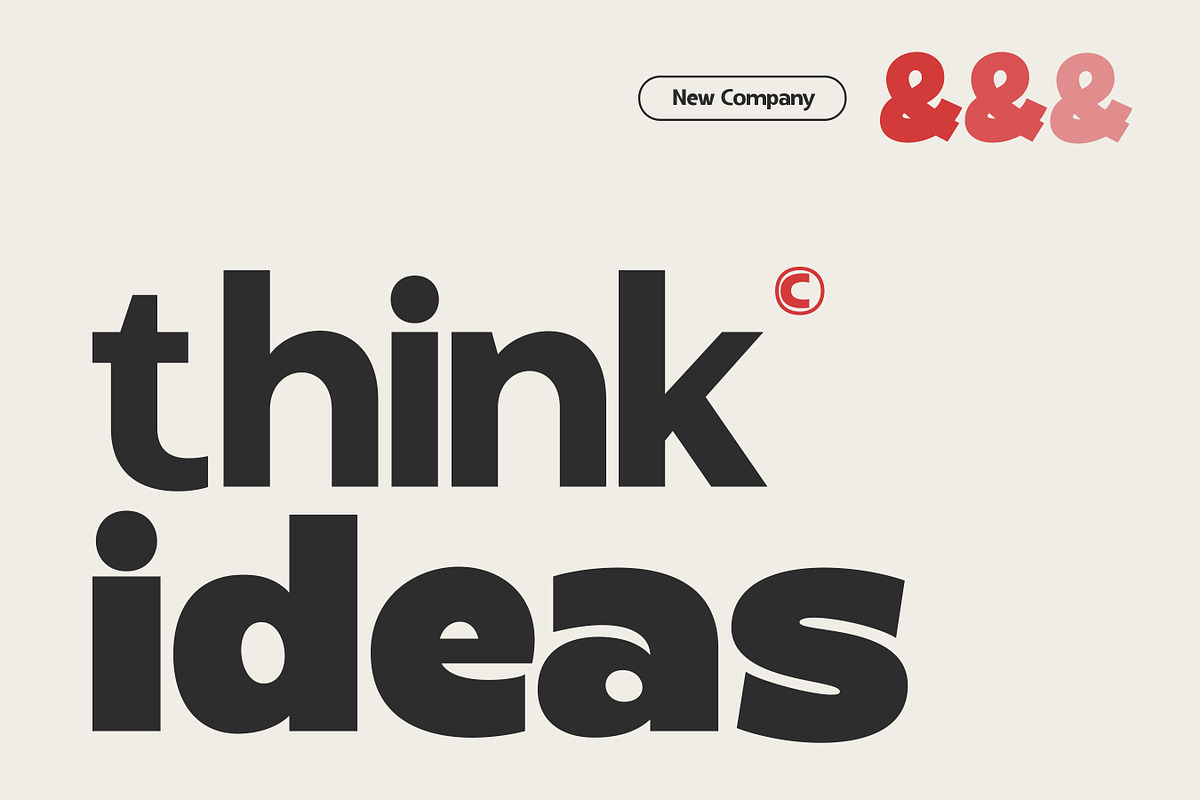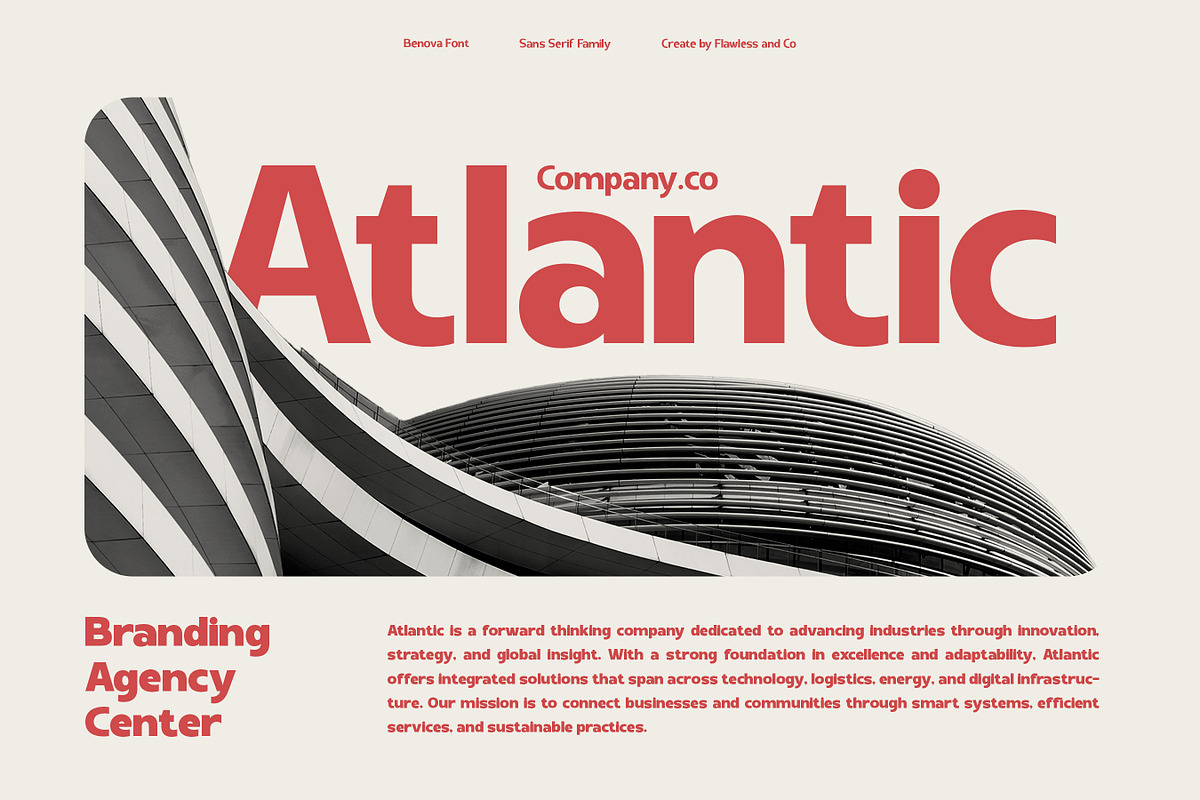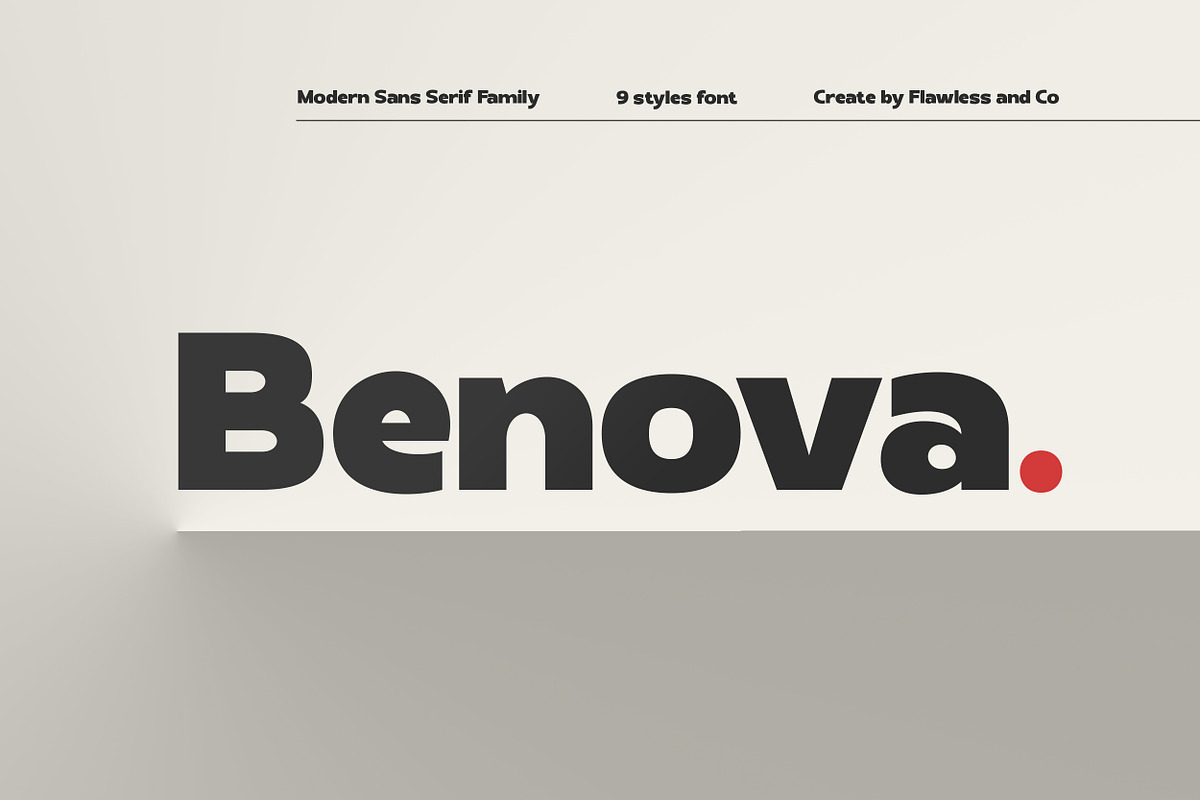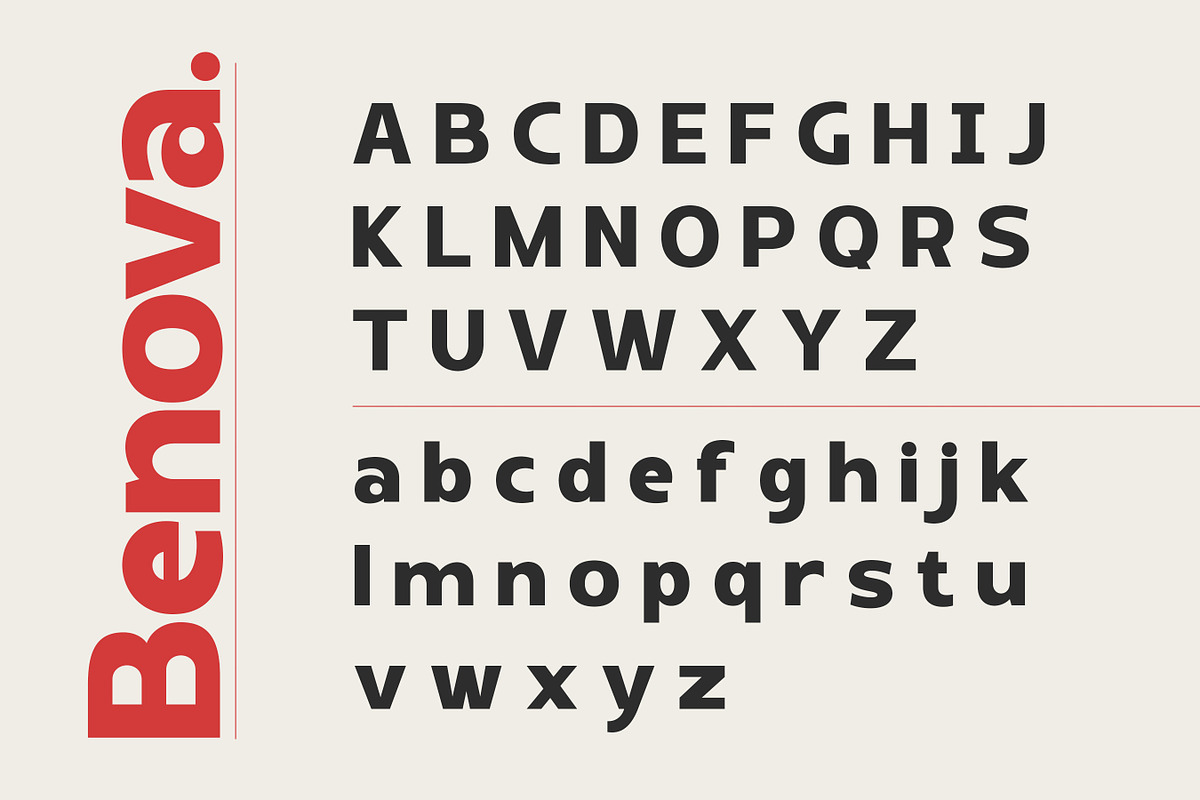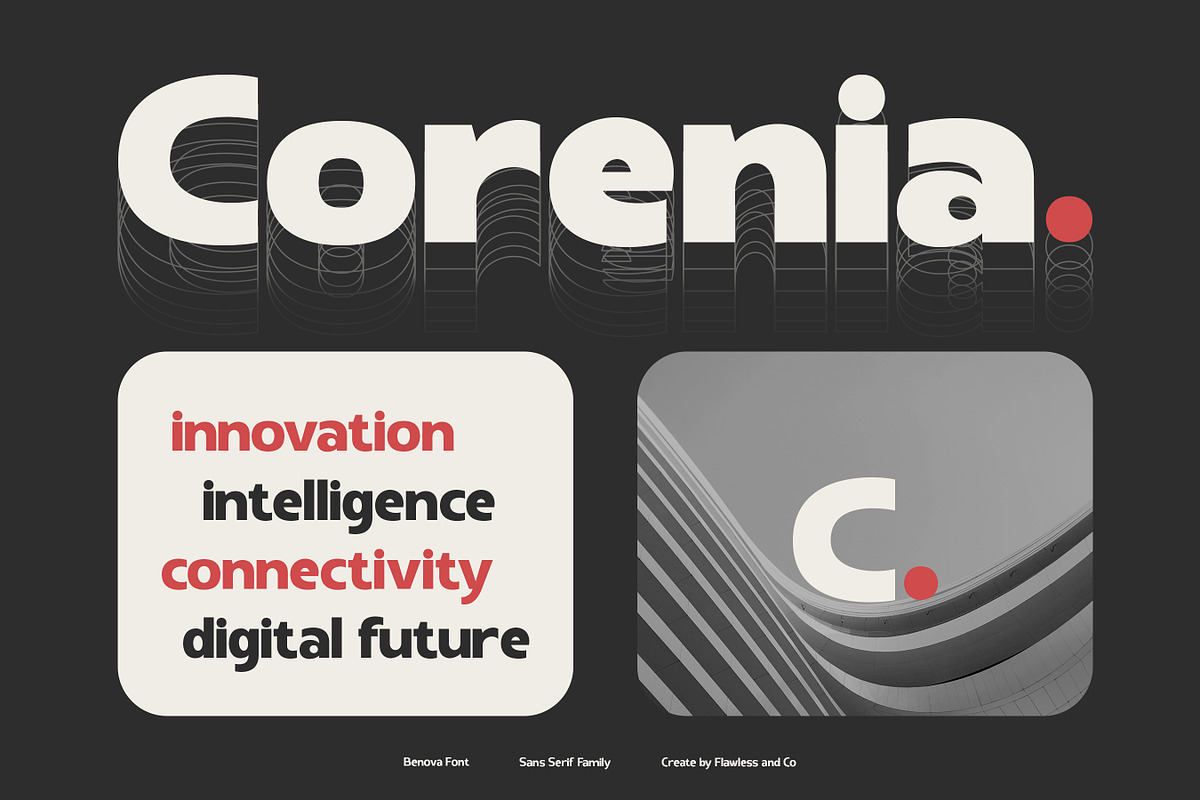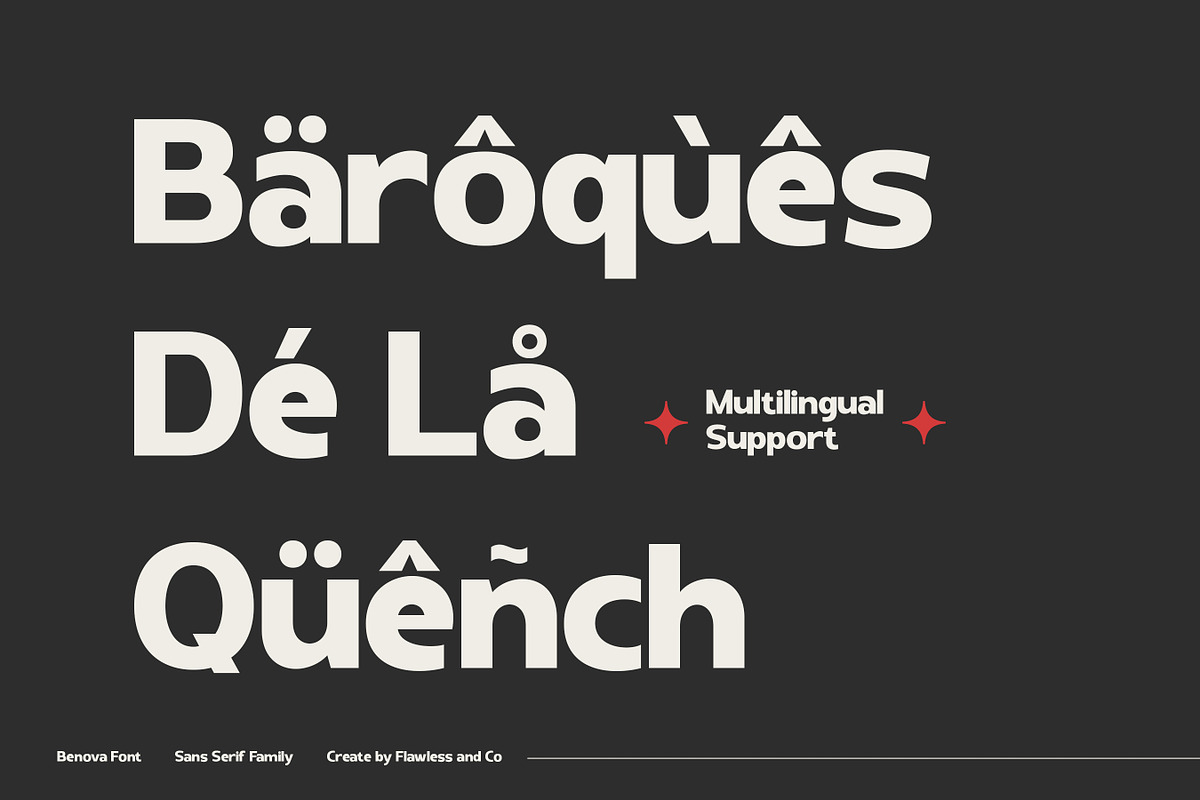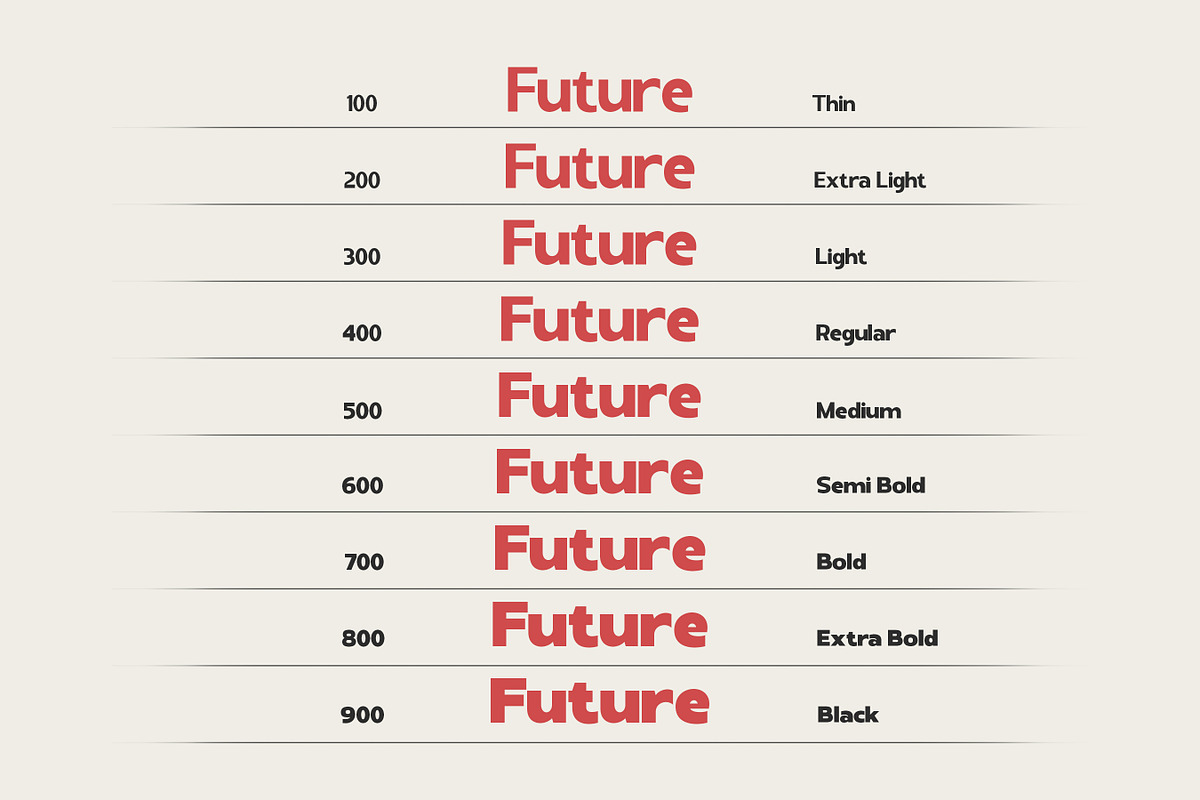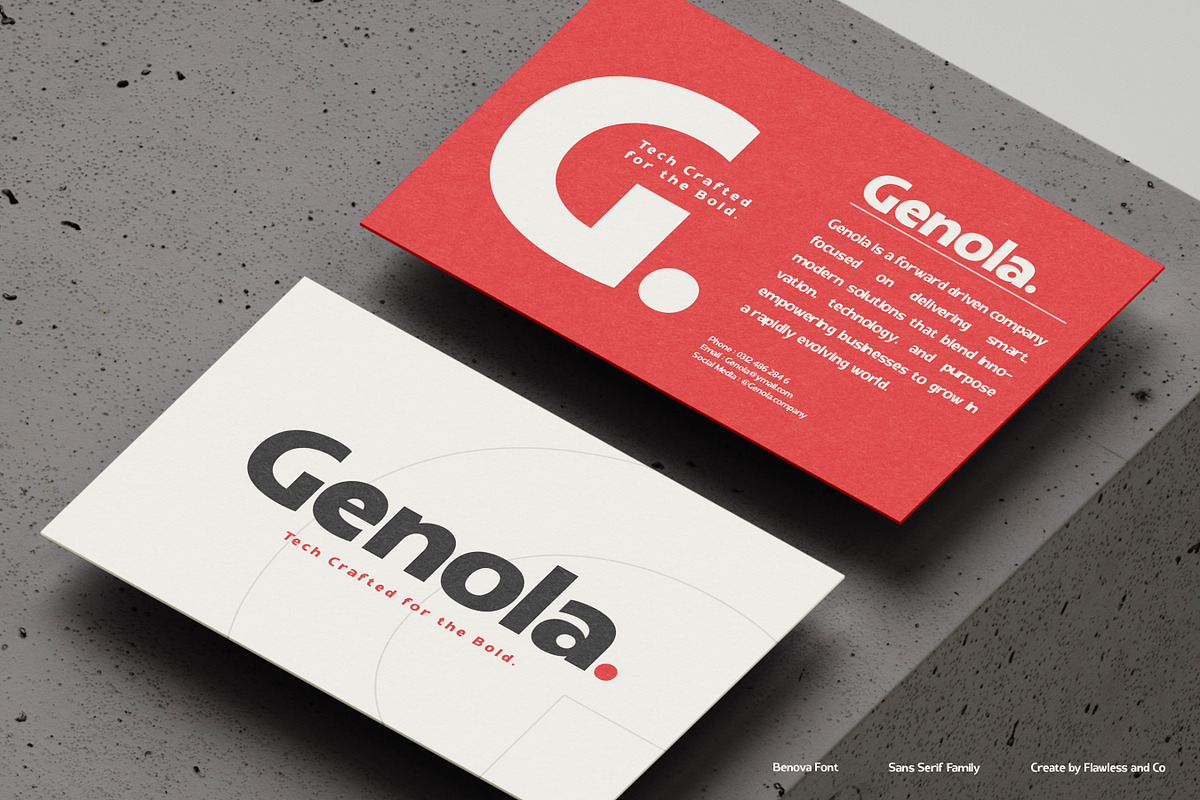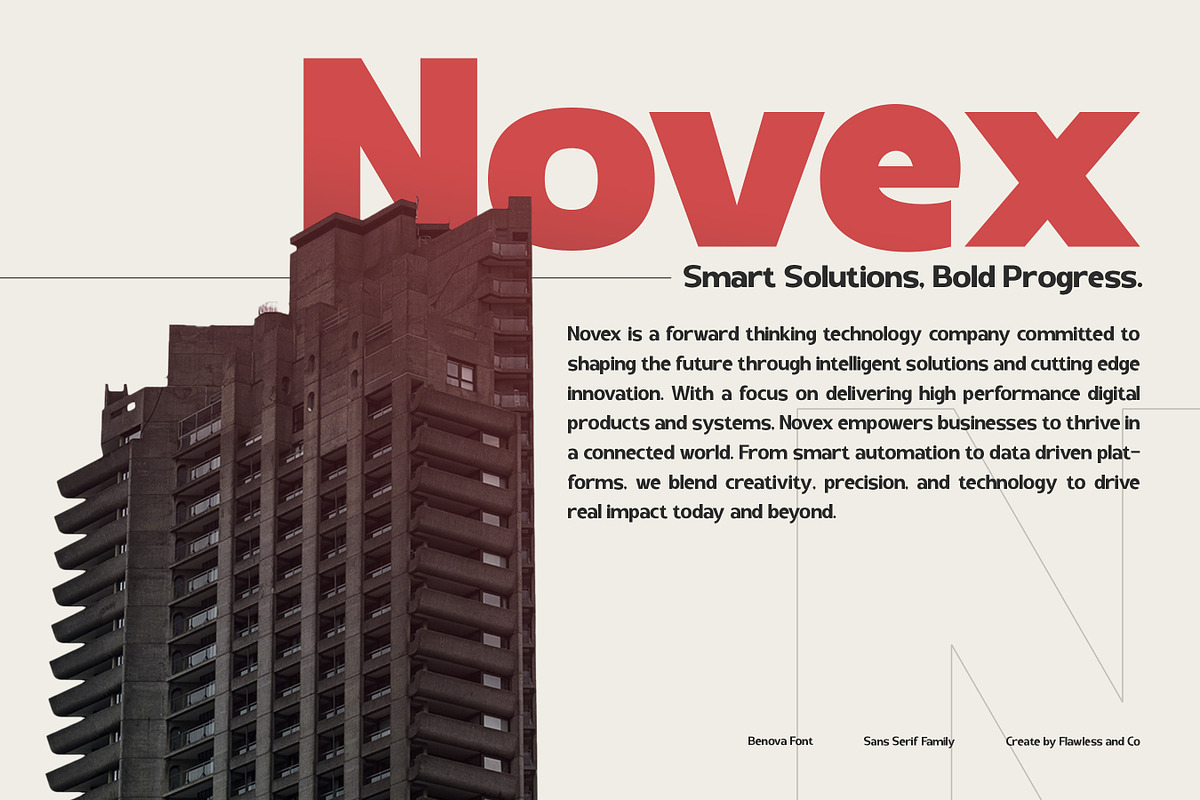
Benova - Family Sans Serif Font
Benova - Modern Sans Serif Family Font
Benova is a modern sans serif font family designed with versatility, balance, and bold clarity in mind. Featuring 9 carefully crafted styles ranging from thin to black, Benova offers clean lines, geometric shapes, and excellent legibility that make it ideal for both print and digital projects. Its contemporary design gives a strong and confident voice, perfect for professional branding, corporate identity, editorial layouts, and bold headlines. Whether you’re working on logos, marketing campaigns, or sleek product packaging, Benova provides the flexibility and style needed to create impactful designs.
Who Should Use Benova?
Benova is the perfect choice for designers, brands, and professionals who value clarity, versatility, and modern aesthetics in their work.
This font is ideal for:
- Graphic designers who need a clean, adaptable typeface for multiple projects
- Branding agencies creating strong, professional visual identities
- Businesses looking to enhance their corporate materials with modern typography
- Editorial designers working on magazines, books, and digital publications
- Marketing teams designing impactful advertising campaigns
- Web and app designers who want readability paired with a sleek, contemporary style
Whether you’re building a bold brand identity or refining elegant layouts, Benova is crafted to meet the needs of modern creators across industries.
A Must-Have Font for "Brand and Logo" Creators and Designers
Benova is a must-have for brand and logo creators who want to craft designs that are both timeless and modern. With its clean sans serif family style and multiple weights, Benova gives you the flexibility to create bold wordmarks, professional logotypes, and cohesive brand systems that stand out across print and digital platforms. Its balance of simplicity and strength makes it the ideal foundation for logos that need to be memorable, scalable, and versatile—perfect for everything from startups to established brands.
Why Choose benova for "Brand and Logo" Projects?
Choosing Benova for your brand and logo projects means investing in a font that combines professionalism, modernity, and adaptability. Its sans serif family structure with multiple styles allows you to craft identities that are clear, strong, and versatile across different applications. Benova’s clean geometry and balanced proportions ensure that your logos look sharp at any size—whether on digital screens, print materials, or large-scale signage. With its modern appeal and timeless simplicity, Benova gives your brand a confident visual voice that resonates with audiences and stands out in today’s competitive market.
Suitable For:
- Brand identities and professional logo design
- Corporate and business presentations
- Editorial layouts, magazines, and publications
- Website headlines and digital interfaces
- Product packaging and promotional materials
- Creative agency projects and advertising campaigns
- Social media content and marketing visuals
- Signage, posters, and event branding